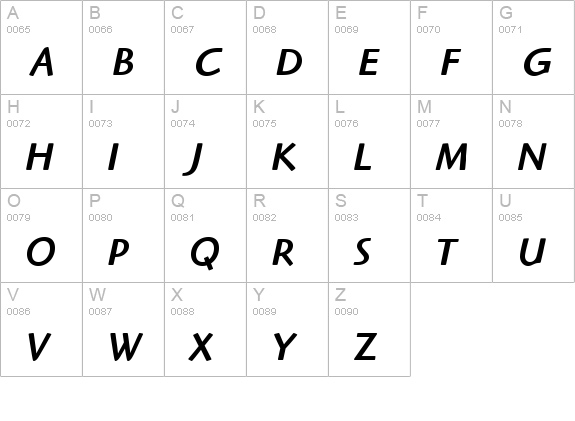
HighlanderEF-MediumItalic is a stylish and elegant font that exudes modern sophistication with a touch of flair. Its sleek and flowing italic design adds a touch of sophistication to any project, making it perfect for use in branding, advertising, and editorial design. The unique letterforms and subtle curves of this font make it stand out from the crowd, giving your text a distinctive and memorable look. Best of all, HighlanderEF-MediumItalic is available for free download at FontsMarket.com, allowing you to enhance your designs without breaking the bank. Whether you're a designer looking for a versatile font to add to your collection or a business owner in need of a stylish typeface for your branding, HighlanderEF-MediumItalic is the perfect choice. Download it today and elevate your designs with this stunning and versatile font.